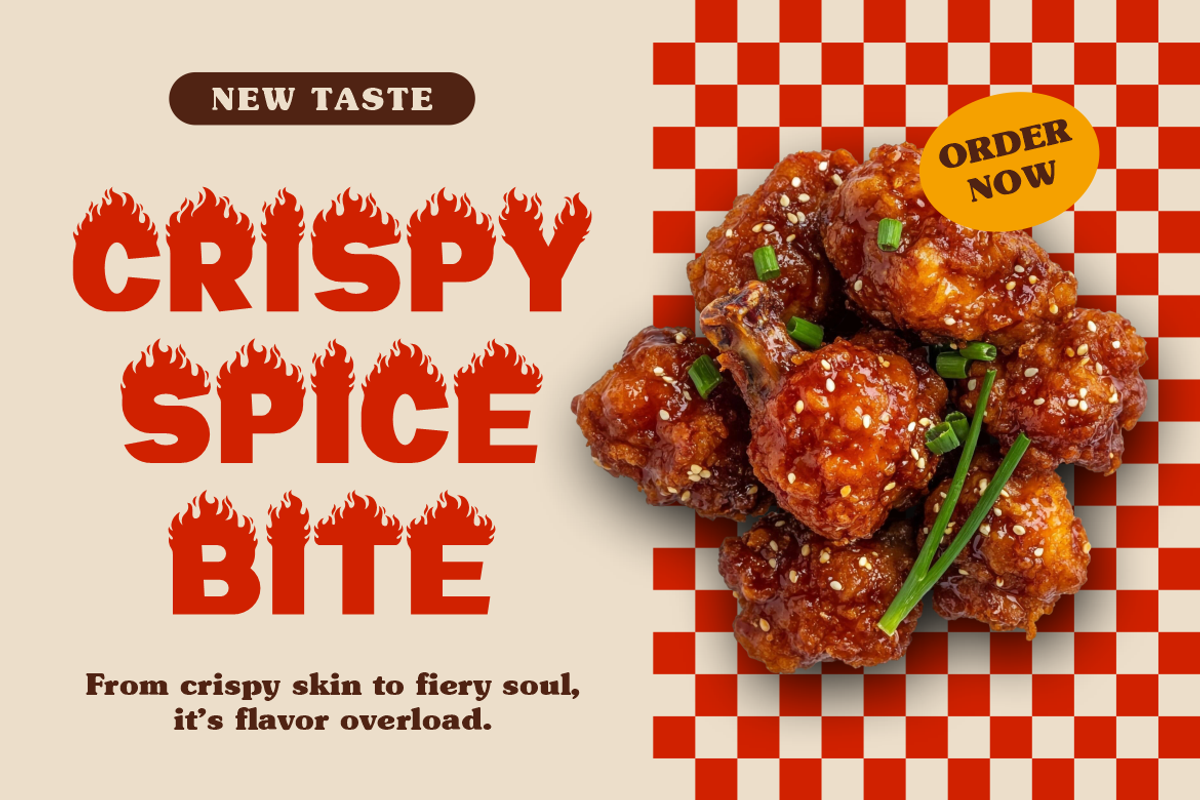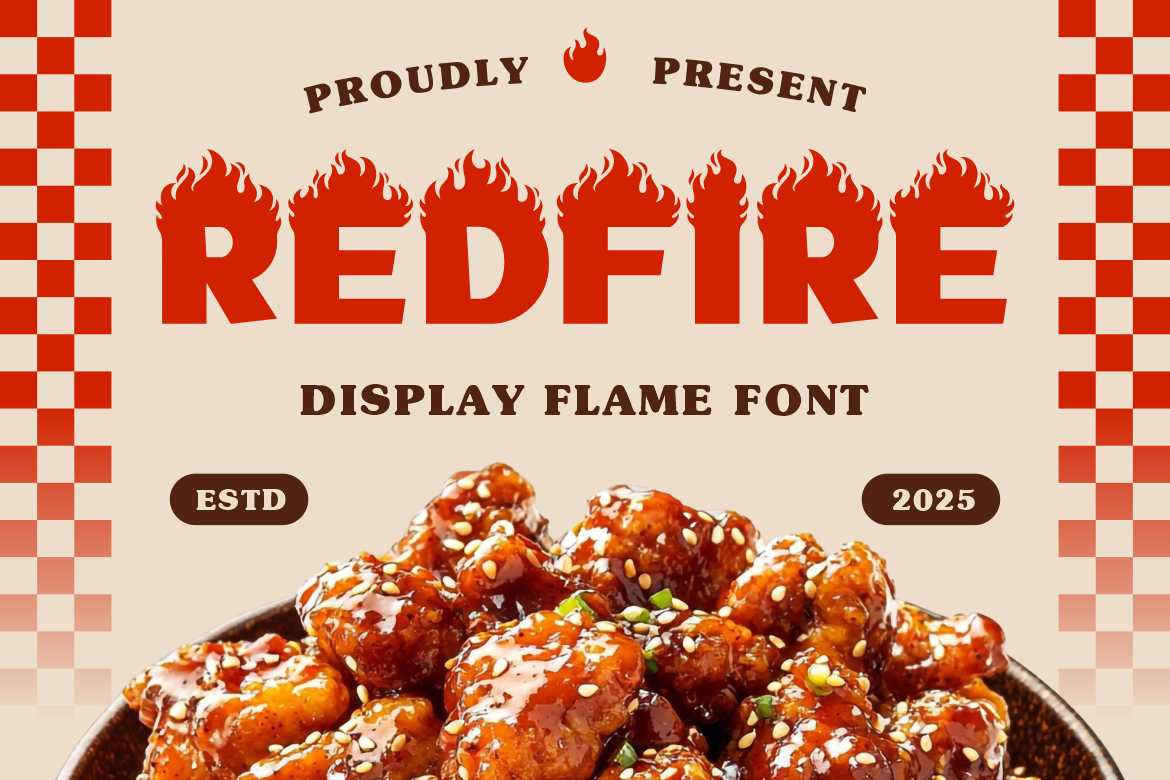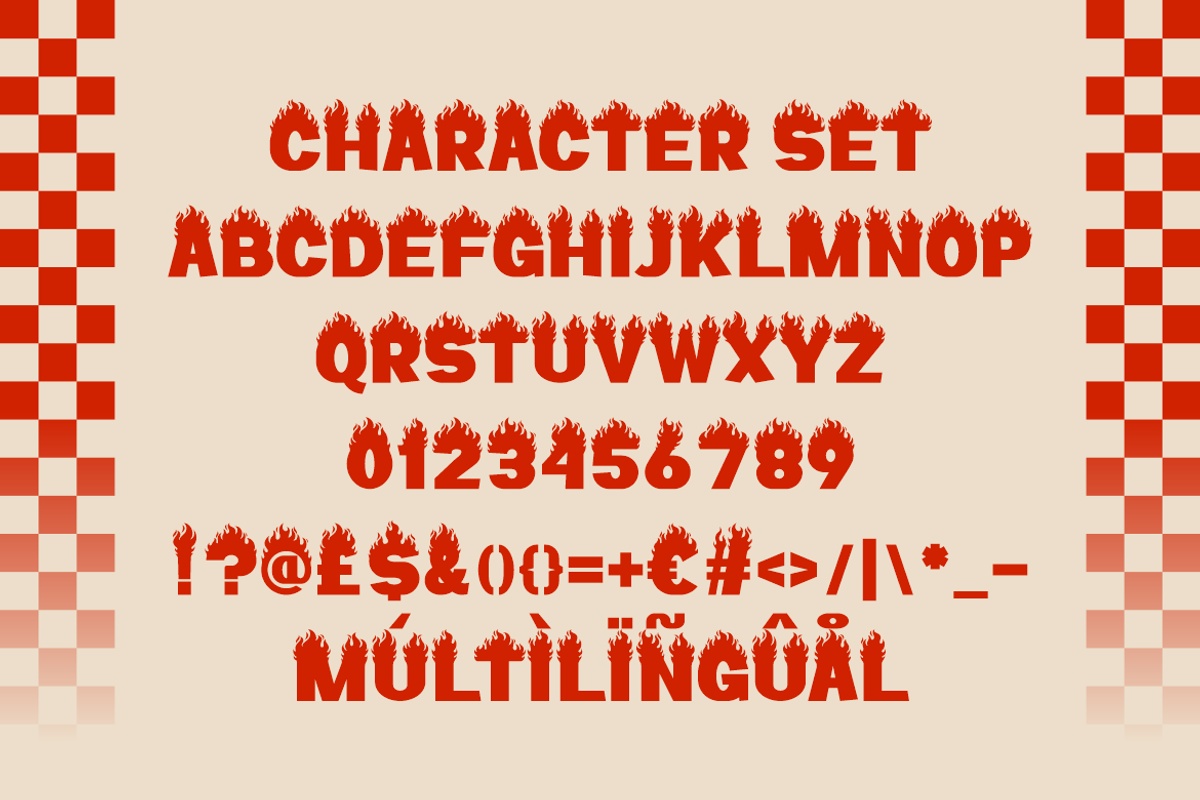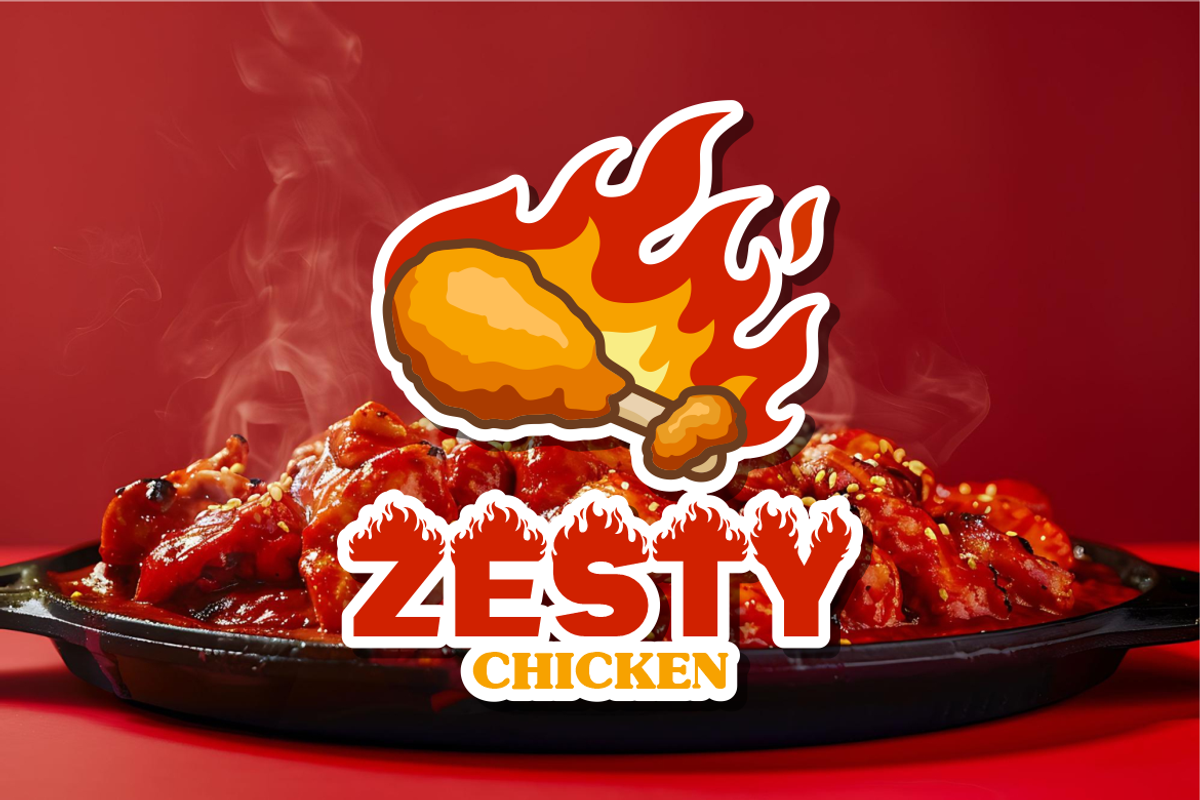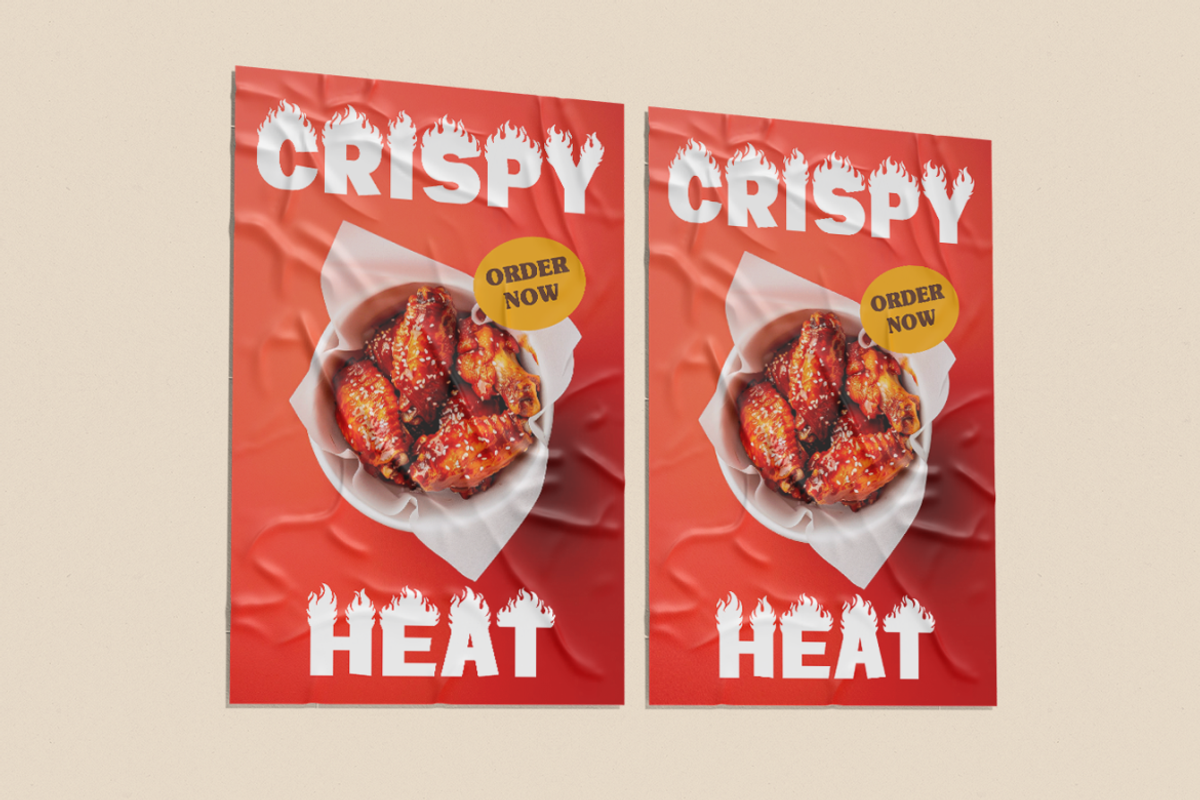
Redfire Display Flame Font
Redfire Display Flame Font is a blazing typeface that captures the essence of heat, passion, and bold creativity. Its thick, heavy strokes are sculpted with sharp precision, topped with dynamic flame details that give each letter a sense of motion and energy. The font’s structure is tall and solid, delivering maximum legibility while maintaining an eye-catching visual power. Designed for designers who love expressive typography, Redfire Display Flame Font turns any text into a striking visual statement that feels alive and intense.
Perfect for food branding, restaurant logos, spicy packaging, posters, and promotional designs, this font radiates excitement and warmth. It brings out the “hot” character of any project, whether it’s a fast-food campaign, a fiery event poster, or a bold merchandise design. The font’s confident and energetic look adds instant drama, making it ideal for attention-grabbing titles and advertising headlines. Redfire Display Flame Font is more than just a font—it’s a symbol of heat, flavor, and fearless creativity that helps every design stand out with burning confidence.